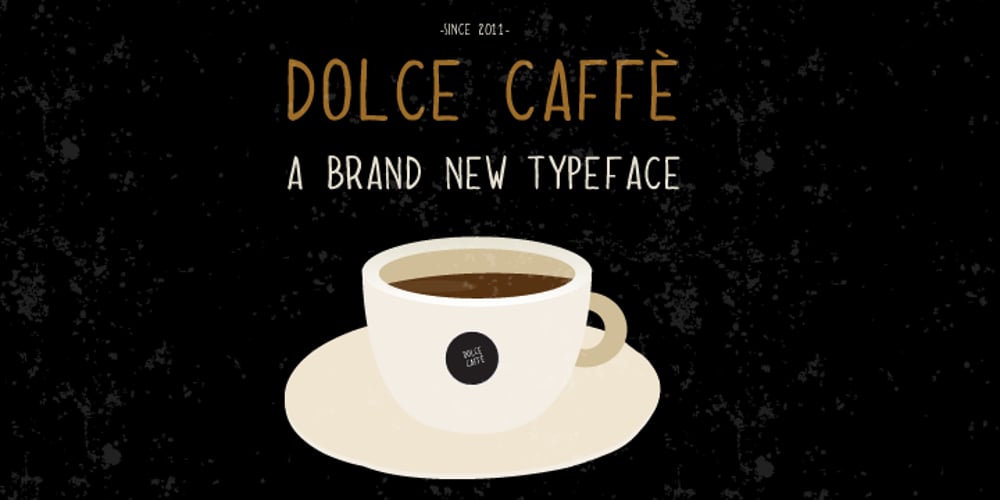
Dolce Caffe Font Family was designed by Giuseppe Salerno, Paco González and published by Resistenza. Dolce Caffe contains 4 styles and family package options. Dolce Caffe is a pretty hand-written font, designed in 2011, that is very legible and high in style and carefully constructed all-uppercase letters. It was totally inspired by hand-written chalkboards in Berlin, a city that I love. Take also a look at Merendina